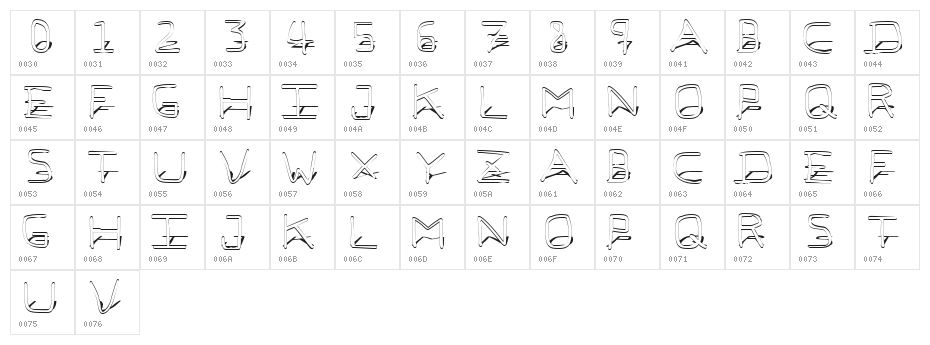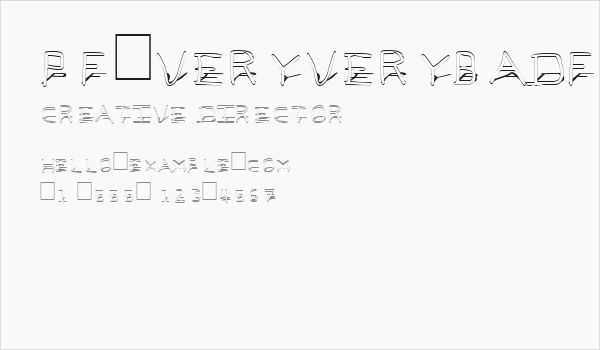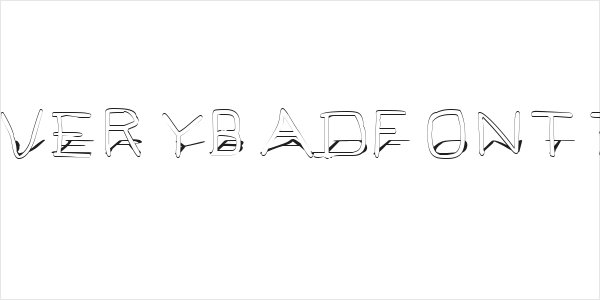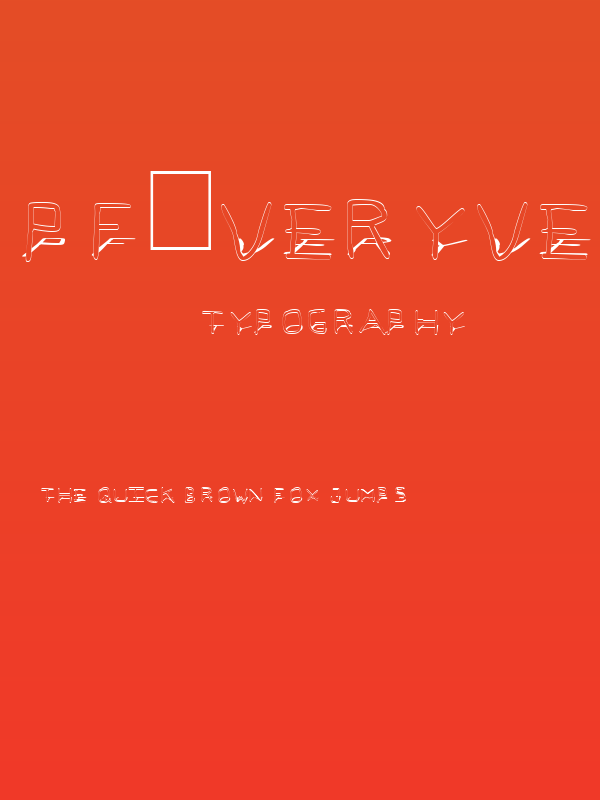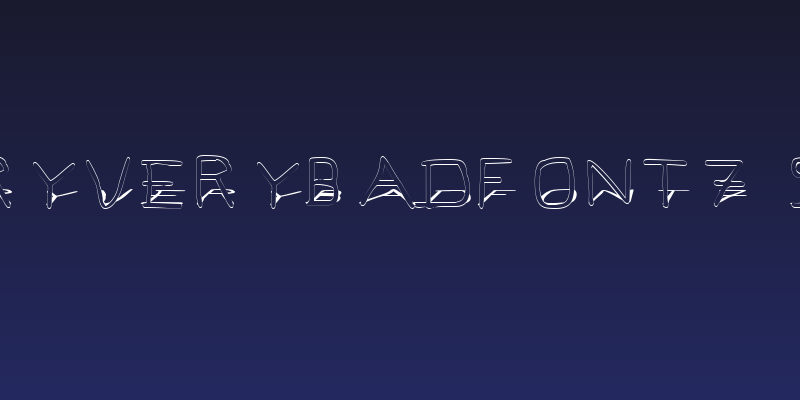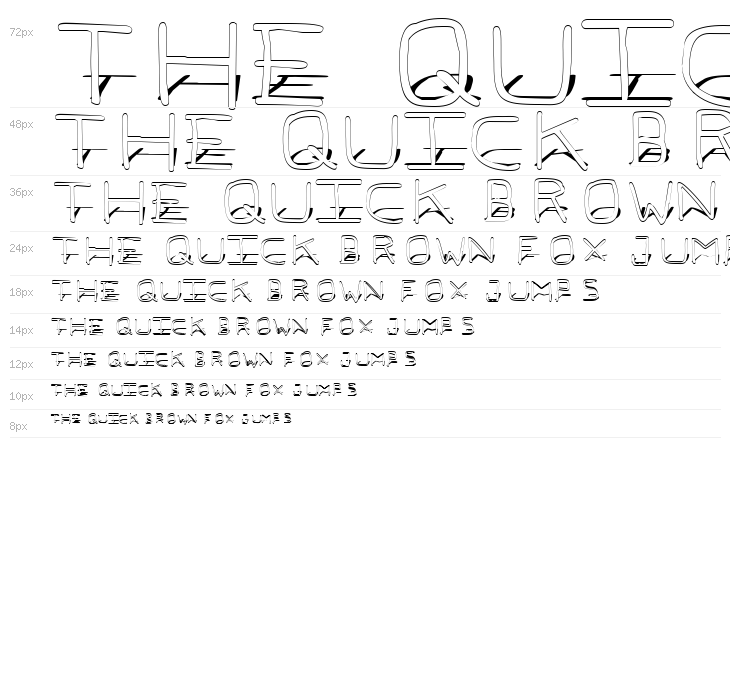
Pf_veryverybadfont7 Shadow Font
Pf_veryverybadfont7 Shadow Description
This font features a unique, abstract design with a shadow effect that creates a sense of depth and movement. The characters are composed of thin, angular lines with a distinct geometric style, giving it a futuristic and edgy appearance. The uppercase and lowercase letters maintain a consistent style, while the numbers and special characters follow the same design principles. The font's intricate details and shadowing make it stand out, ideal for creative and artistic projects.
| Proposed Projects | Ideal for digital art, modern posters, sci-fi themed designs, and creative branding. |